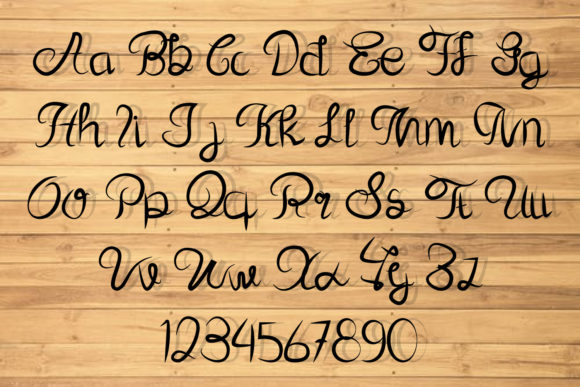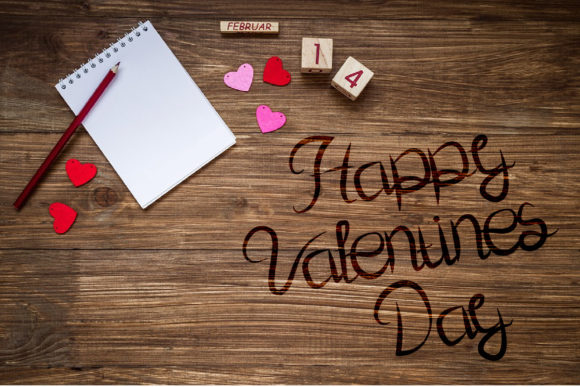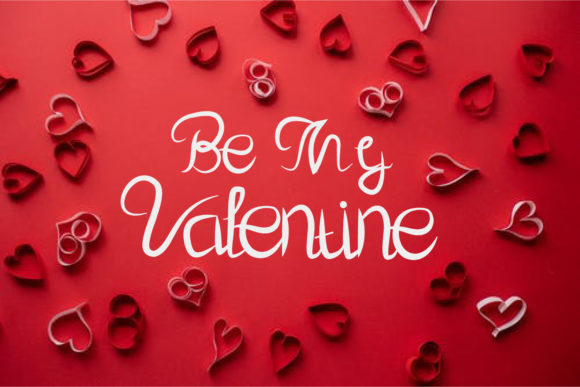
Introduction to Love You Font
As a designer, there’s nothing quite like the rush of finding the perfect font for a creative project. The moment when all the pieces come together, and your design is elevated by a single, high-quality element is pure magic. I still remember the time I stumbled upon the Love You Font, and my heart skipped a beat. Its unique characters and genuine touch had me hooked from the start.
With its transparent background and free download option, this design resource has quickly become a go-to for designers looking to add a touch of whimsy to their work. Whether you’re working on an informal project or something more romantic, the Love You Font is sure to bring a smile to your face and a touch of personality to your design.
Key Features of Love You Font
- High-quality vector graphics with transparent background, ideal for creative projects requiring design flexibility.
- Designed to be easily scalable, allowing for seamless use in various creative projects, from small graphics to large-scale designs.
Honest Review: Love You Font
I recently had the chance to work with the Love You Font, and I must say it’s a fantastic addition to any design resource. The high-quality typography is perfect for a creative project that requires a touch of elegance and sophistication.
One of the standout features of this font is its transparent background, which makes it incredibly versatile and easy to use. I was able to seamlessly integrate it into various designs without worrying about any background noise or distractions.
- ✨ Elegant and refined aesthetic
- ✨ High-quality typography
- ⚠️ Limited font styles, which may not be ideal for projects requiring a wide range of typographic options
Overall, I’m impressed with the Love You Font. It’s a great resource for designers looking to add a touch of class to their creative projects. While it may have some limitations, its high-quality typography and transparent background make it a valuable addition to any design library.
Love You Font is a high-quality design resource that can elevate your creative project to the next level. With its transparent background and beautiful typography, it’s perfect for various design applications.
Love You Font is perfect for various design applications, including wedding invitations, social media graphics, and marketing materials. Its beautiful typography and transparent background make it an ideal choice for creative projects that require a touch of elegance and sophistication.
Is the Love You Font suitable for use in digital signage or other high-resolution applications?
Yes, the Love You Font is designed to be scalable and legible at various resolutions, making it suitable for use in digital signage, high-resolution prints, or other creative projects that require a high-quality design resource.